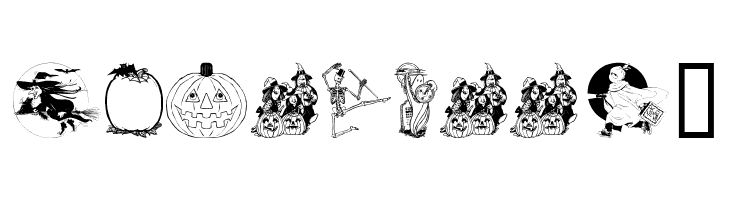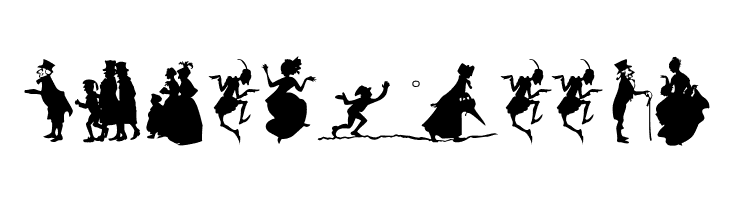
A playful font with letters inside black cat silhouettes, perfect for Halloween themes.
( Fonts by Graham Meade - GemFonts )
Halloween-themed dingbat font with spooky illustrations.
( Fonts by Graham Meade - GemFonts )
Christmas-themed dingbat font with festive illustrations.
( Fonts by Manfred Klein - manfred-klein.ina-mar.com )
A festive collection of hand-drawn Christmas and holiday symbols.
( Fonts by The Scriptorium - Dave Nalle )
A decorative font with vintage holiday-themed silhouettes.